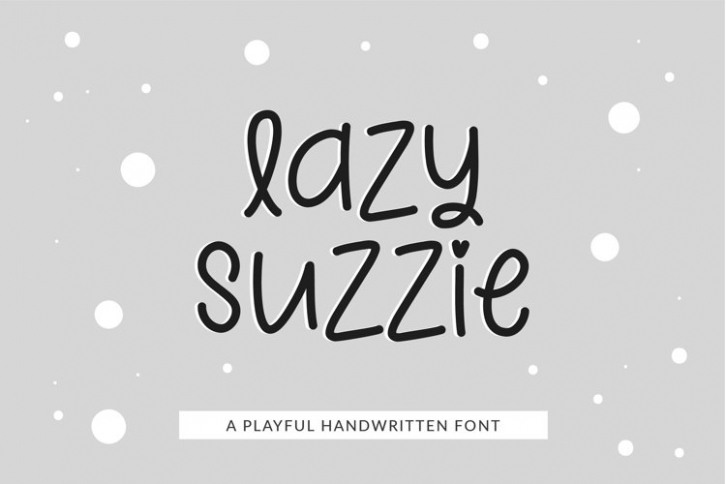
Lazy suzzie is a beautiful font that was designed by plusstore. It's a great choice for designers and creatives who need such a font. It was released on December 16, 2021 and the file size is 11.16 MB. Lazy suzzie may give a more youthful, expressive and casual look to your project. It is a very beautiful, refined, elegant, and high-quality font.